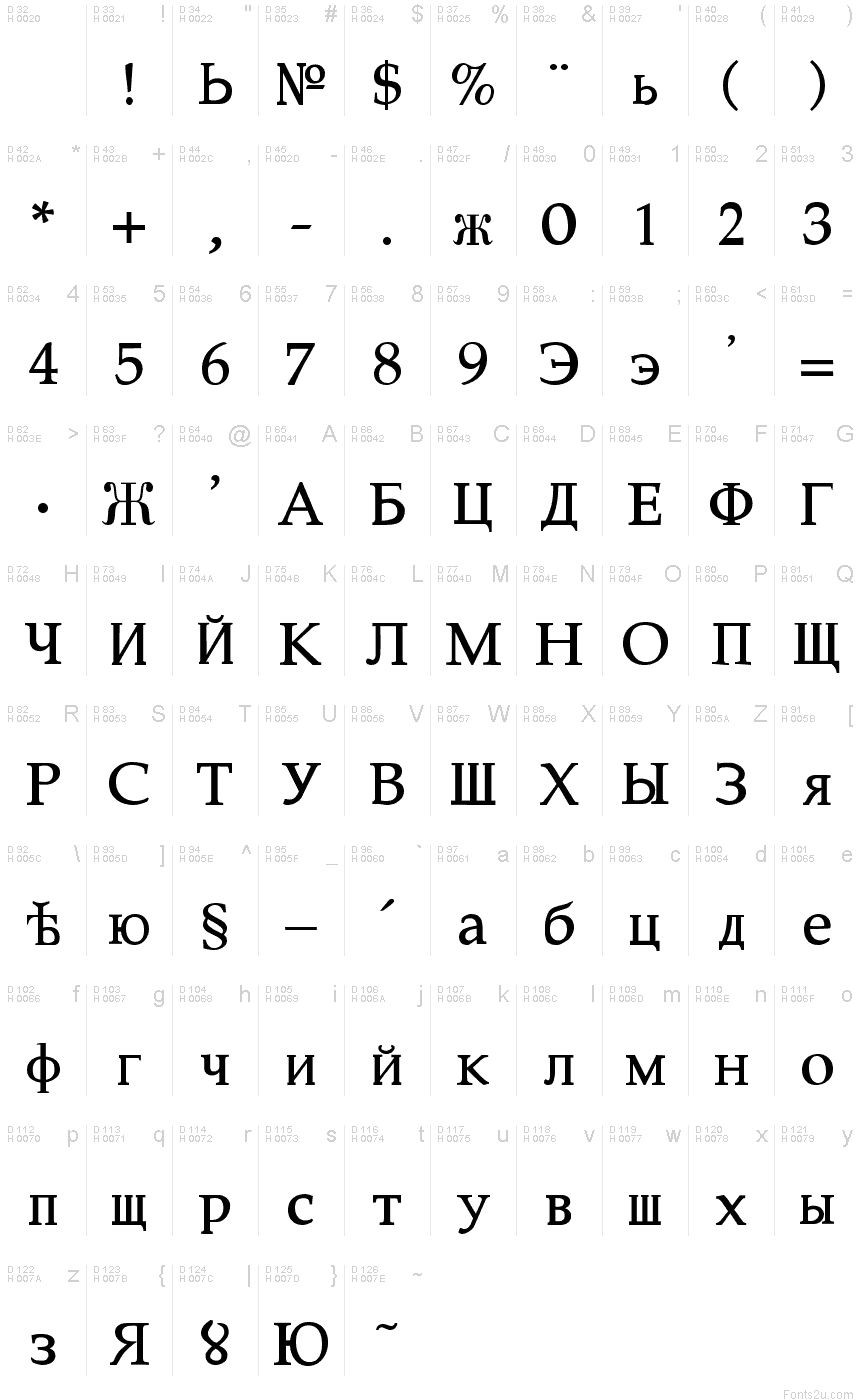
Constantin by L. Jake Jacobson of the University of Pittsburgh is a free Russian-style serif display font with a stately, high-contrast build. Broad letterforms and fine hairlines recall formal book type.
Cultural organizations and Russian restaurants could use it for event posters or packaging rooted in regional themes. It also suits publishing projects with historical or literary subject matter. Across these settings, the formal proportions connect a strong Russian reference with an editorial finish.